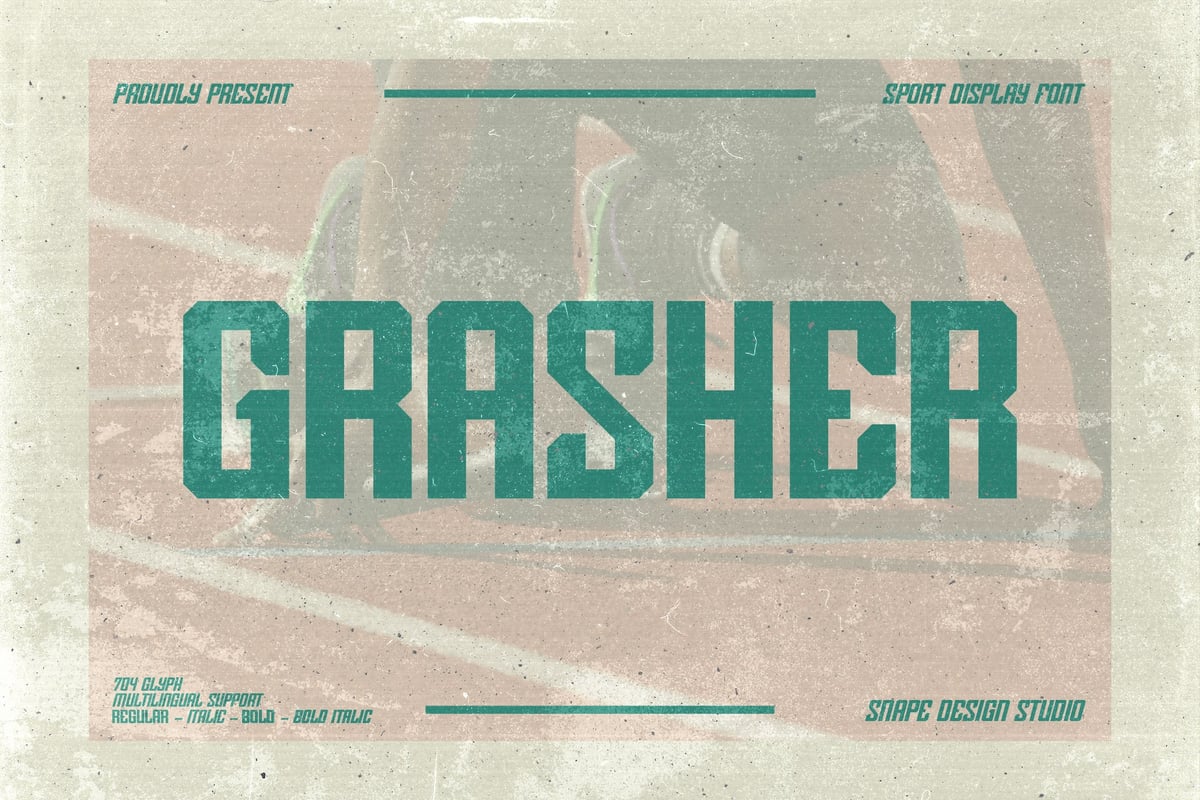
Grasher - Sport Font
Command attention with Grasher - a powerful sport font designed to make your athletic projects dominate the competition. This bold typeface delivers the vibrant energy needed for sport-inspired designs that demand to be noticed. Perfect for creating memorable team identities, striking jersey designs, professional league branding, and dynamic movie titles. Grasher excels across diverse applications including logos, posters, games, book covers, headlines, and any project requiring a commanding pre...
Grasher - Sport Font